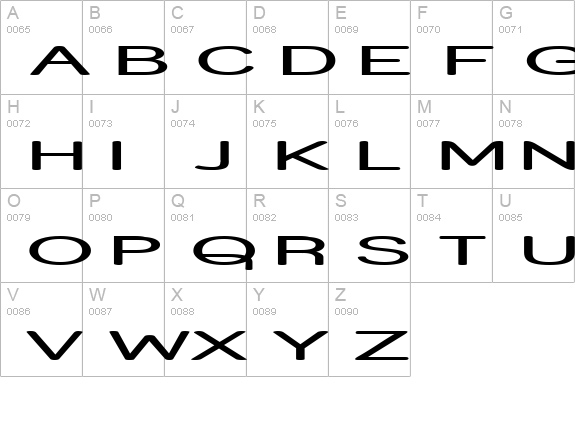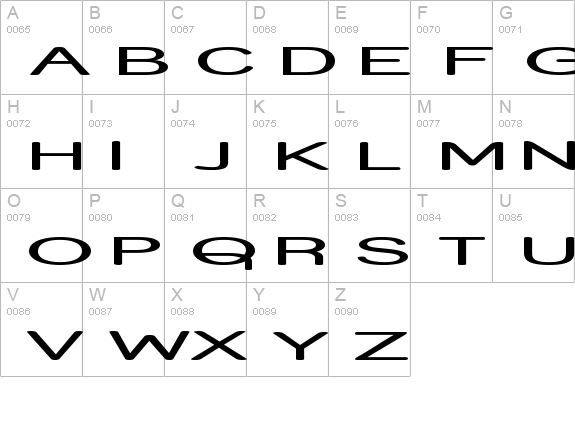
Street Corner HyperExtend font is a modern and stylish typeface that is sure to make a bold statement in any design project. Its sleek lines and sharp edges give it a contemporary and edgy look, making it perfect for a wide range of applications, from branding to editorial design. The font features extended characters and unique ligatures that add a touch of sophistication to any text. What makes Street Corner HyperExtend font even more appealing is that it is available for free download at FontsMarket.com. This means that you can easily access this fantastic font without having to spend a dime. Whether you're a professional designer looking to add a fresh new typeface to your collection or a hobbyist looking to experiment with different fonts, Street Corner HyperExtend is a great choice that won't break the bank. Download it today and see how it can elevate your design projects to the next level!